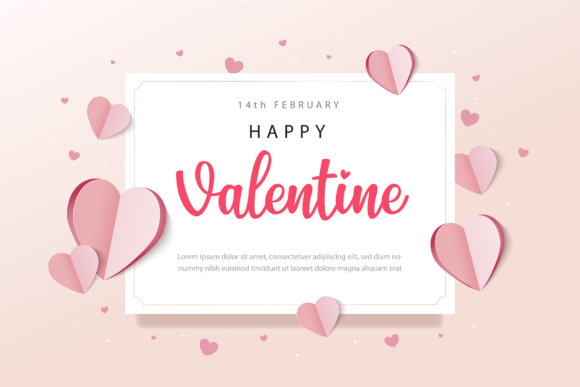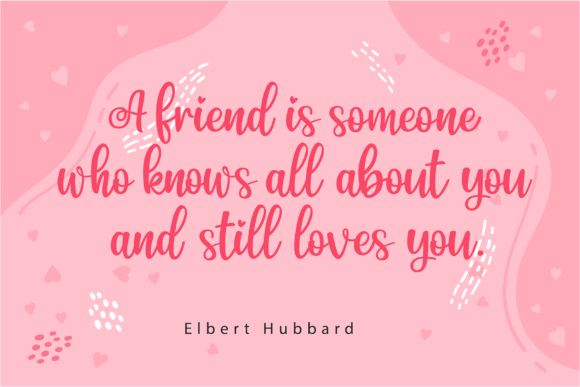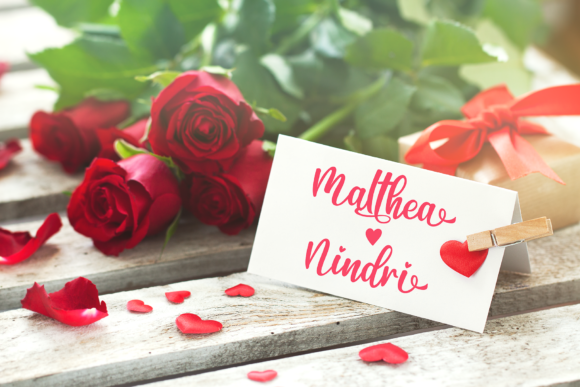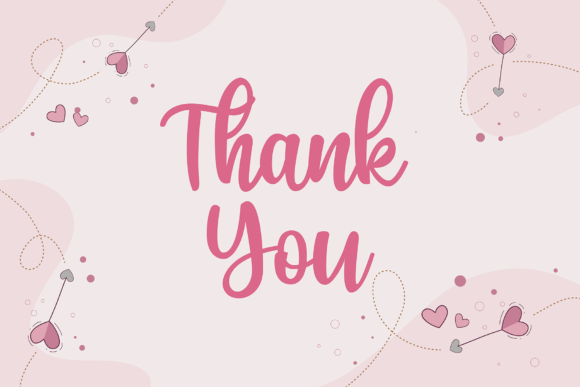
Valenia Font
About Valenia Font
Valenia is a beautiful handwritten font. It looks lovely on invitations, thank you cards, quotes, greeting cards, logos, business cards and every other design which needs a personalized, dreamy touch.